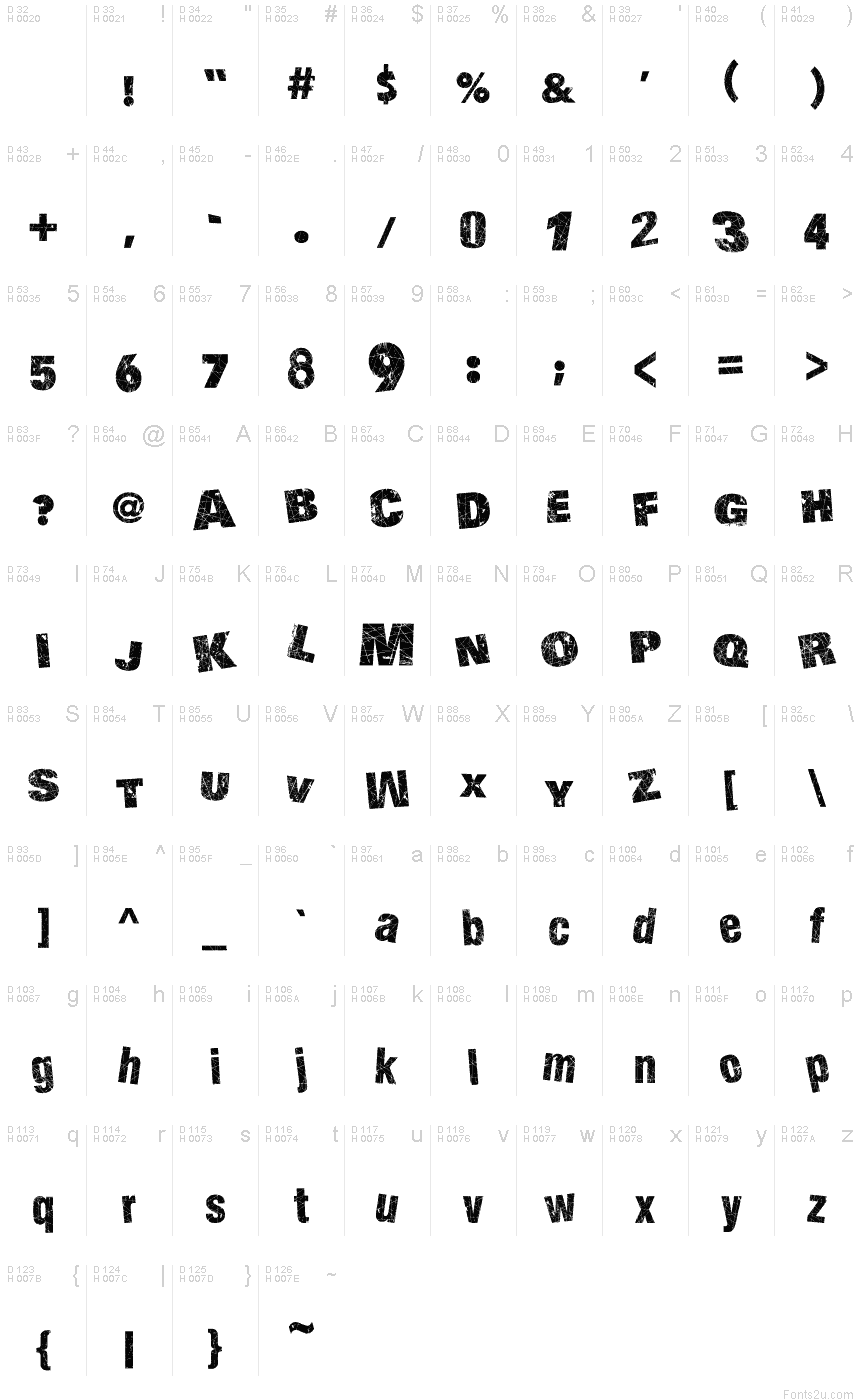
Action of The Time A L
In this version added lowercase. This font was made to be used in pop art and artistic projects that involve action and emotion. The name comes from its scretched appearance, wich denotes time effects. You can see that there are many grazes, and that makes it a very informal font.